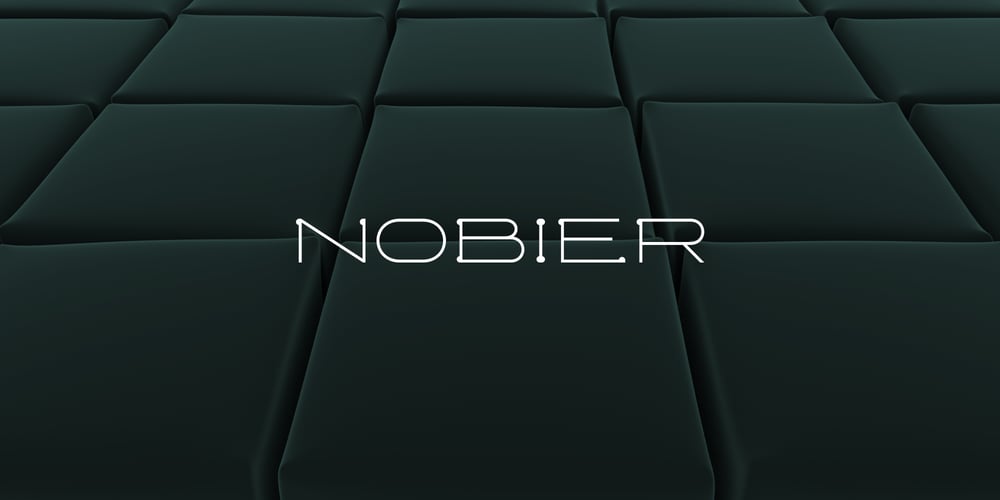
Nobier Font Family was designed by Taka Ikari and published by Outerend. Nobier contains 8 styles and family package options. “Nobier” typeface has has a modern look in tech flavor. Extended shapes with half circles gives these letters more unique feel but they are still legible on any screens. They can be great fit for mobile apps, social ads and contents, poster designs, film and TV credits, and many other media outputs. If purchased with the ‘variable’ option, you can control weights of letters more precisely as you like. Enjoy!